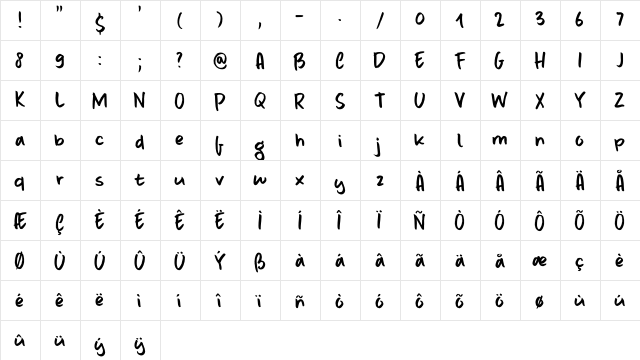
DK Carrot Juice Regular
| Foundry | David Kerkhoff |
| Designer | David Kerkhoff |
Design Context for DK Carrot Juice Typeface
DK Carrot Juice is a composed and adaptable typeface that performs quietly and consistently across a wide range of design contexts.